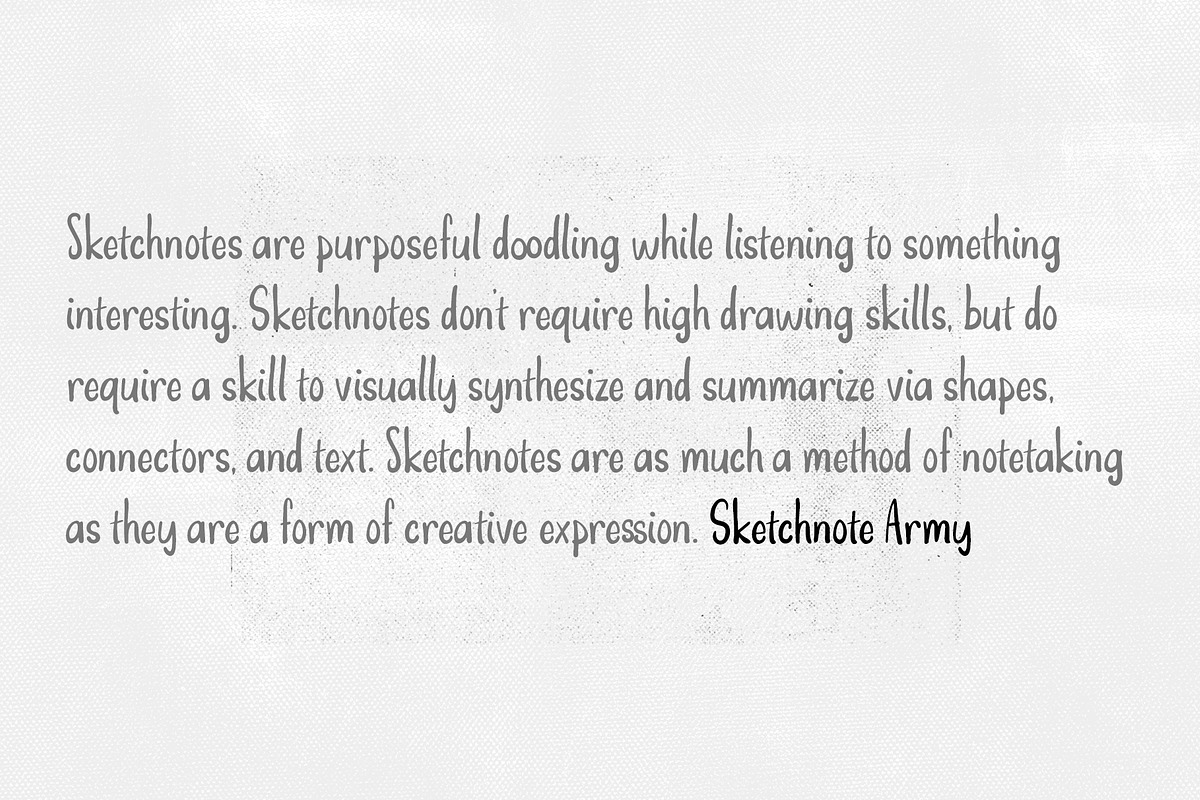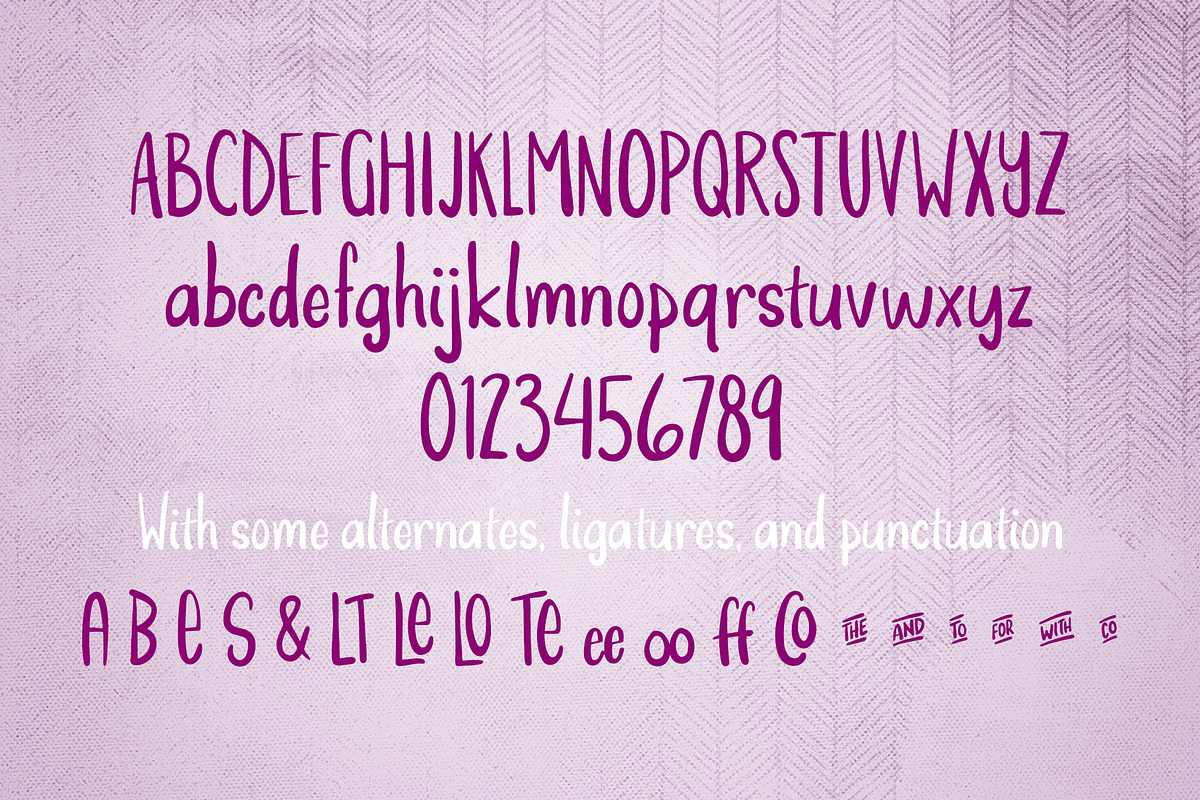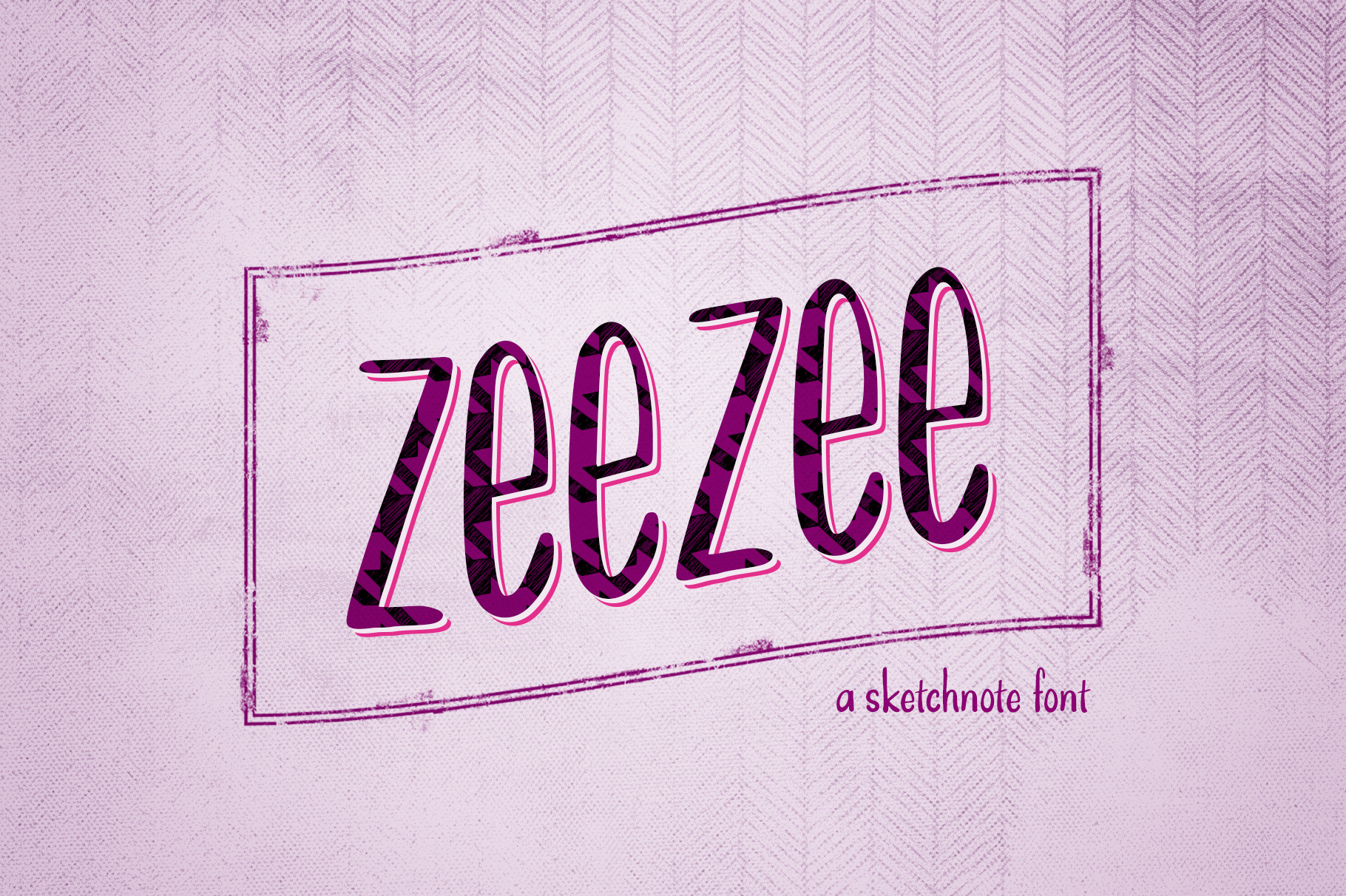
ZeeZee: A Handrawn Sketchnote Font
ZeeZee comes from some lettering in my illustrated notes (see at mitchmade.com/sketchnotes ), Next in a series of sketchnote fonts, this light and fun, hand drawn font, looks great as display type, and looks good in blocks of text.
- ZeeZee in one weight and style (now with lower-case and alternates).